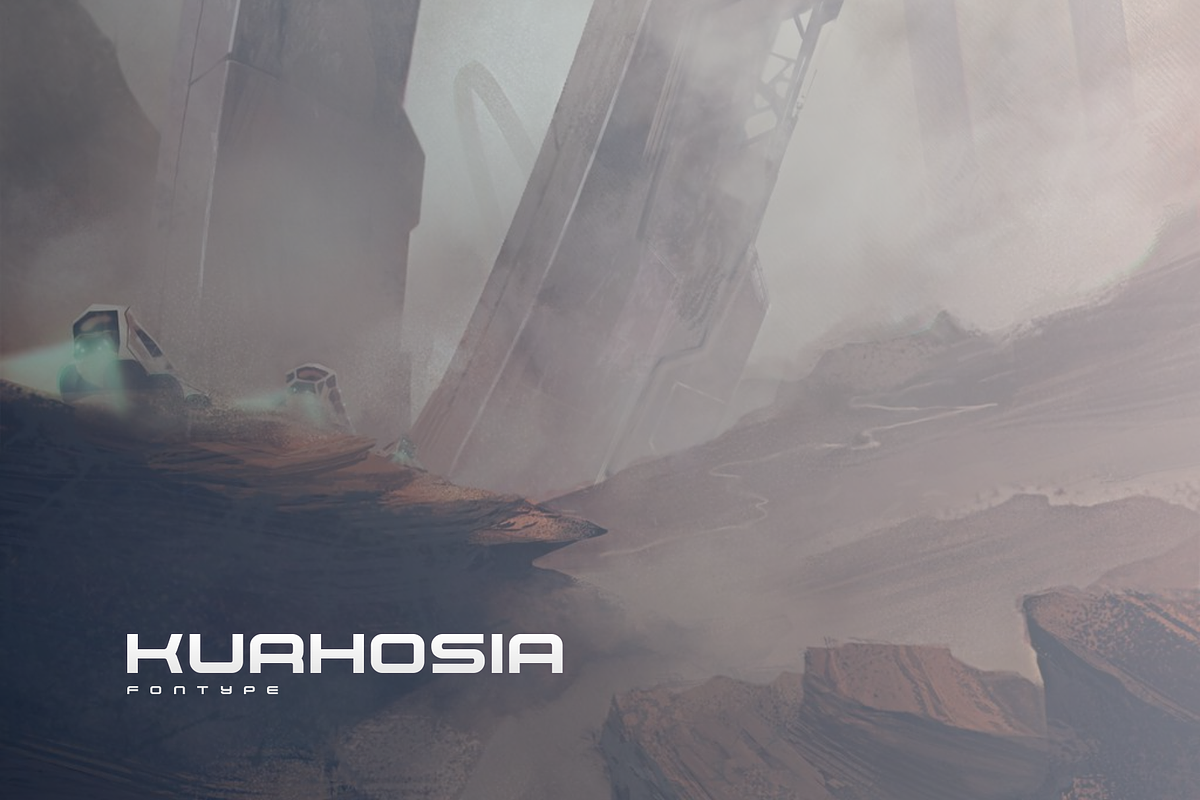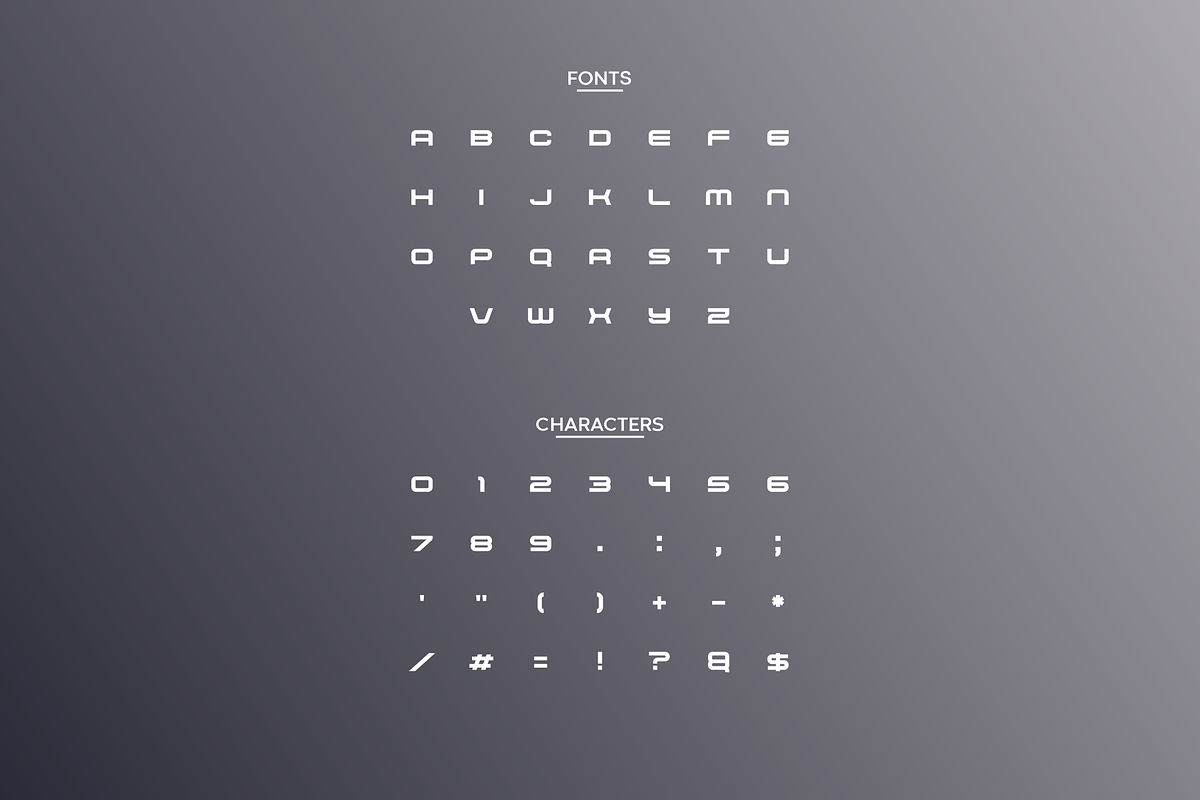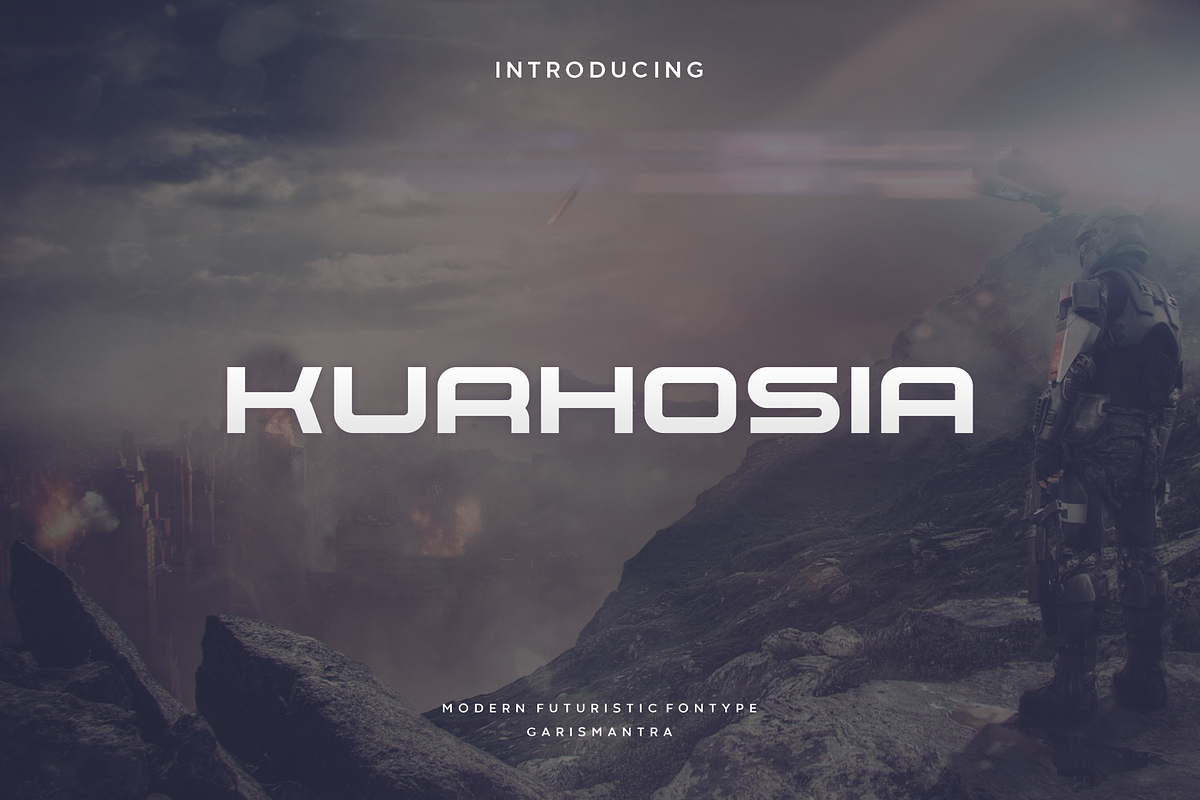
Kurhosia
Kurhosia is a modern, elegant and futuristic display font. This font would be ideal for writing web designs, business cards, or pretty much anything else that requires a unique touch.